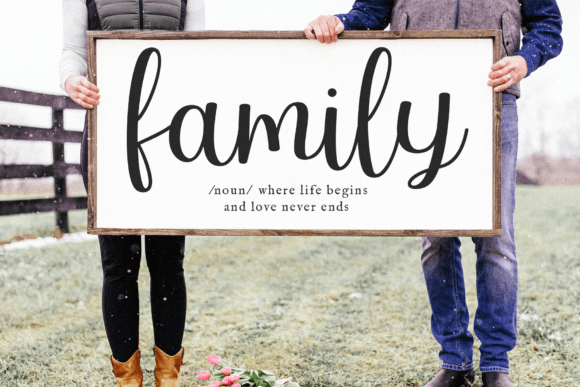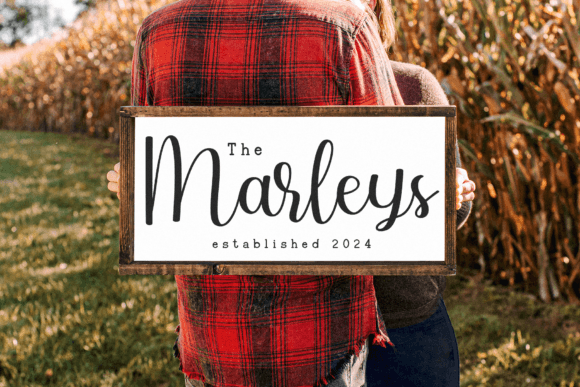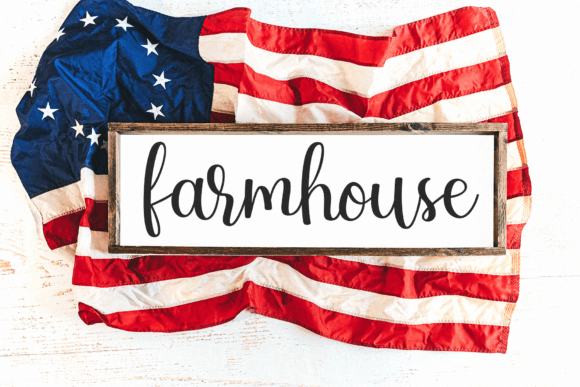
Introduction to Marley Font
Do you remember the moment when you found the perfect font to elevate your creative project? The thrill of scrolling through font options, and finally, stumbling upon the one that makes your design pop? For many designers, this moment is a game-changer. And today, we’re excited to share with you a new design resource that’s sure to become a staple in your creative arsenal: the Marley Font.
With its modern script style, Marley Font is perfect for adding a touch of elegance to your craft projects. Whether you’re creating logos, signs, or Cricut projects, this versatile font is sure to bring a lot of charm to your designs. And the best part? It’s available for free download, making it an accessible design resource for creatives of all levels.
Key Features of Marley Font
- High-quality, professional font suitable for creative projects and design resources.
- Unique characteristics include its modern, elegant design and versatility in use, making it suitable for a wide range of creative projects.
- Designed to be highly legible, even at small font sizes, making it an ideal choice for projects requiring clear typography.
Honest Review: Marley Font
I recently stumbled upon the Marley Font and I must say, it’s been a game-changer for my creative projects. This design resource offers a high-quality font that’s perfect for adding a touch of elegance to any design.
Here are some of the things that I love about the Marley Font:
- ✨ Elegant and sophisticated design that’s perfect for luxury brands
- ✨ Highly customizable, making it ideal for creative projects
- ✨ High-quality font that’s suitable for both print and digital designs
However, there are a few limitations that I’ve noticed:
- ⚠️ The font may not be suitable for designs that require a transparent background, as it can be a bit tricky to work with
- ⚠️ Limited font styles and weights, which may not be ideal for designers who need a wide range of options
Overall, I’m really impressed with the Marley Font and I would highly recommend it to any designer looking for a high-quality font for their creative project. With its elegant design and high level of customizability, it’s a design resource that’s sure to deliver.
Marley Font is commonly used for creative projects, such as graphic design, digital art, and typography. It’s also great for presentations, documents, and social media posts. With its unique style and high-quality design, Marley Font is a great addition to any design project.